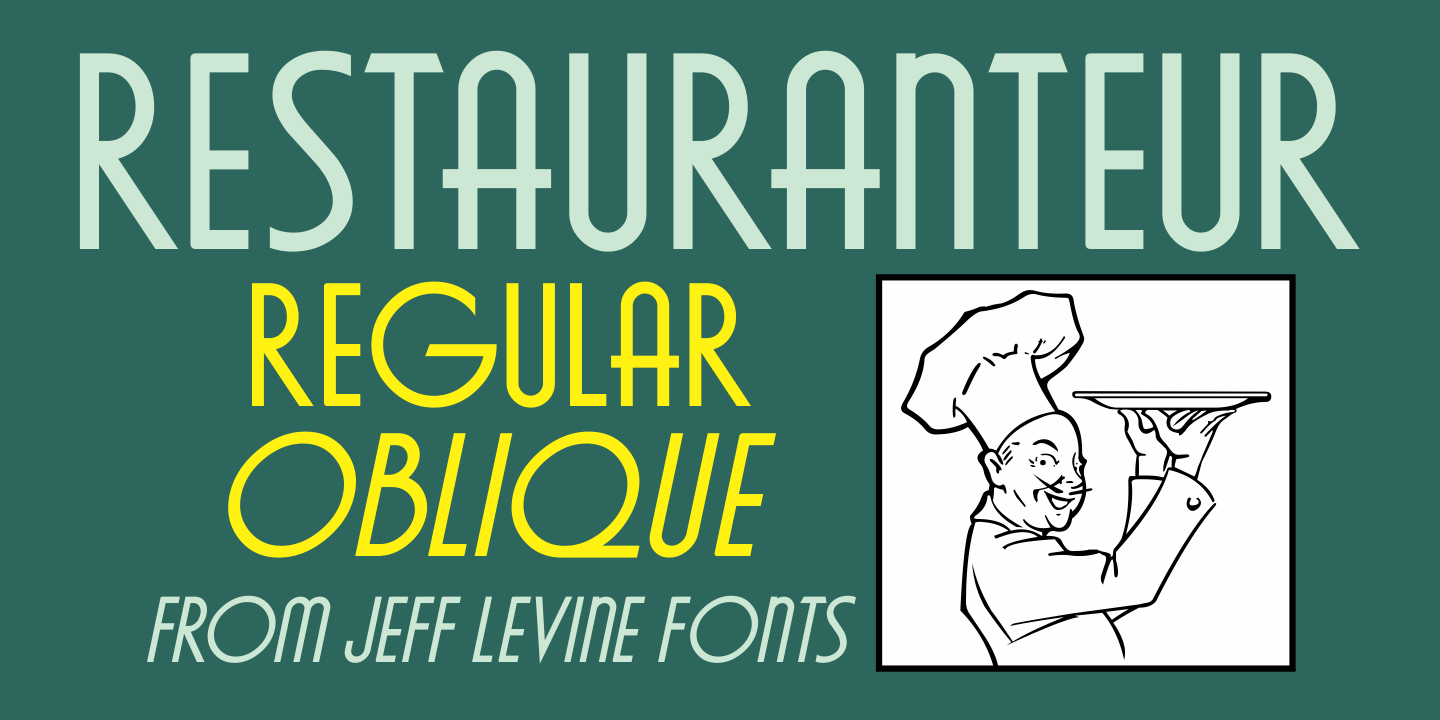
Restauranteur JNL Font is ideal for fine dining establishments, upscale restaurant menus, culinary school materials, gourmet food packaging, chef personal branding, bistro signage, wine bar communications, catering company logos, food magazine layouts, and hospitality industry marketing campaigns.
What makes Restauranteur JNL Font exciting is its sophisticated culinary elegance and professional restaurant character that immediately conveys expertise, quality, and gastronomic excellence. This distinguished typeface embodies the essence of successful restaurateurs with its refined letterforms and hospitality-focused styling that evokes white tablecloths, expertly prepared cuisine, and memorable dining experiences. The font's professional character creates instant credibility and culinary authority that discerning diners recognize and trust.
Restauranteur JNL Font family includes regular weight with professionally crafted character designs featuring culinary-inspired proportions and restaurant industry elegance. The typeface maintains exceptional readability while preserving its distinctive hospitality personality through carefully balanced letterforms that reflect the precision and artistry of professional kitchen environments.
Culinary professionals consistently select Restauranteur JNL Font Free Download for projects requiring authentic restaurant sophistication and gastronomic credibility. This remarkable typeface brings the expertise of seasoned restaurateurs to brand communications, combining traditional hospitality values with contemporary dining trends to create memorable culinary experiences. The thoughtfully designed characters ensure appetizing visual impact across all applications, making it essential for restaurants, catering businesses, and any food service organization seeking to communicate the professional excellence and culinary passion that transforms simple meals into extraordinary dining adventures that keep customers returning.